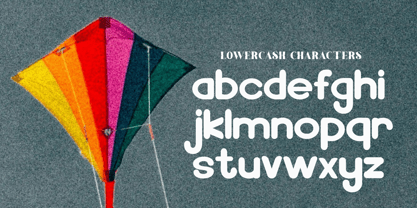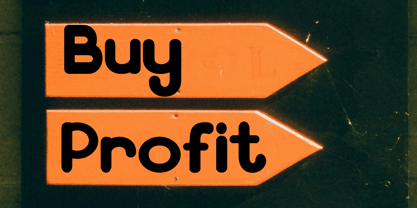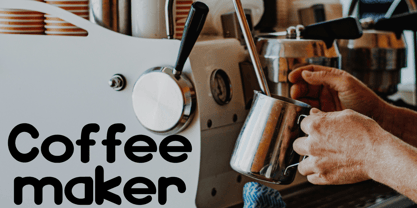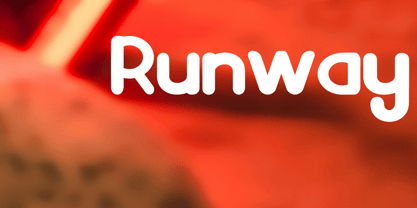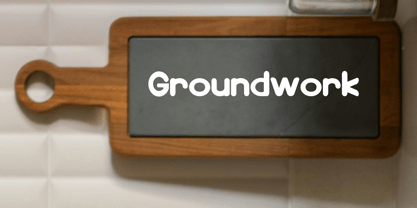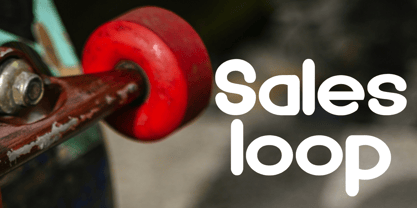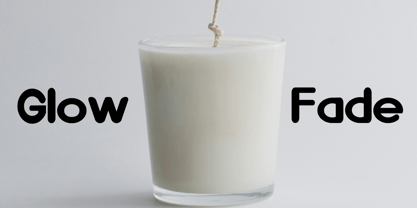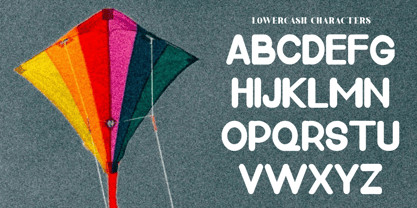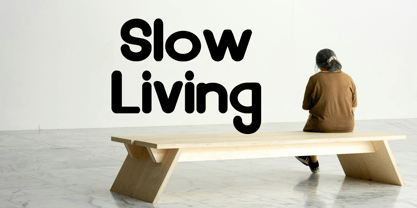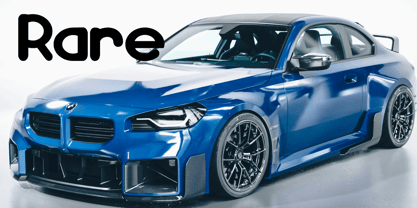
Spiking
by Letternesia studio
The Spiking Font Family was designed by Ta Siyo and published by Letternesia studio. Spiking contains 2 styles and family package options. More about this family
Spiking is a modern typeface that combines elegance with a touch of sharpness. Its balanced proportions and refined curves make it versatile for branding, editorial design, and creative projects. With clear readability and unique details, Spiking adds a stylish character to titles, logos, and typography compositions. Spiking is a contemporary font designed to bring sophistication and impact to your work. The graceful letterforms are crafted to highlight both beauty and functionality. Ideal for logos, posters, packaging, and magazines, Spiking ensures your text stands out with a professional and timeless appeal.